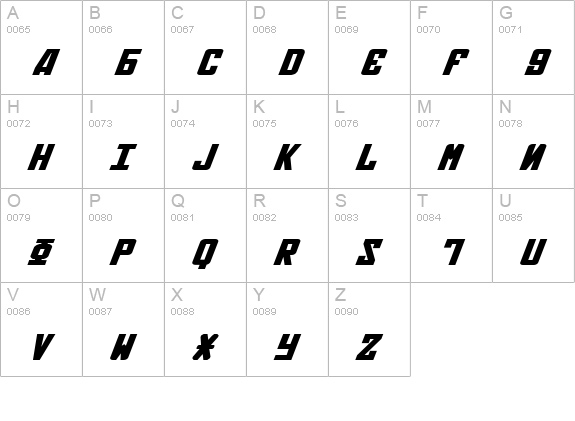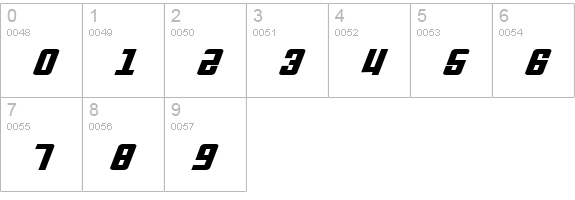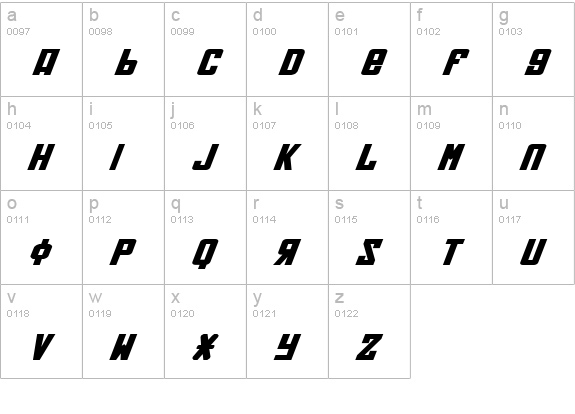
Soviet Bold ExpItal is a strong, high-contrast variant in the Soviet typeface family \xE2\x80\x94 well suited to headlines, attention-grabbing titles, and strong calls-to-action.
Introducing Soviet Bold ExpItal, a captivating and powerful font that effortlessly combines strength and elegance. This striking typeface is perfect for creating eye-catching designs that demand attention. Soviet Bold ExpItal boasts a unique balance between boldness and sophistication, making it an ideal choice for various design projects. Whether you're working on a poster, logo, packaging, or any other creative endeavor, this font will add a touch of distinction and impact to your work. With its bold and expressive letterforms, Soviet Bold ExpItal encapsulates the spirit of an era, evoking a sense of nostalgia and authenticity. Its strong, geometric shapes exude confidence and command attention, while its sleek and italicized nature adds a touch of elegance and flair. But that's not all – Soviet Bold ExpItal is not only visually captivating, but it is also conveniently available for free download at FontsMarket.com. This means that you can enhance your designs without any additional cost, making it a valuable asset for both professional designers and enthusiasts alike. Download Soviet Bold ExpItal and unleash your creativity with a font that combines power, elegance, and the added advantage of being freely accessible. Whether you're aiming for a bold statement or a sophisticated touch, this font will undoubtedly elevate your designs to new heights.